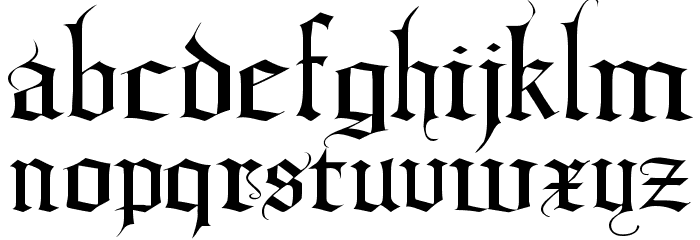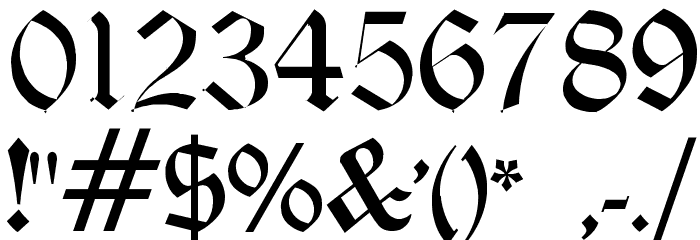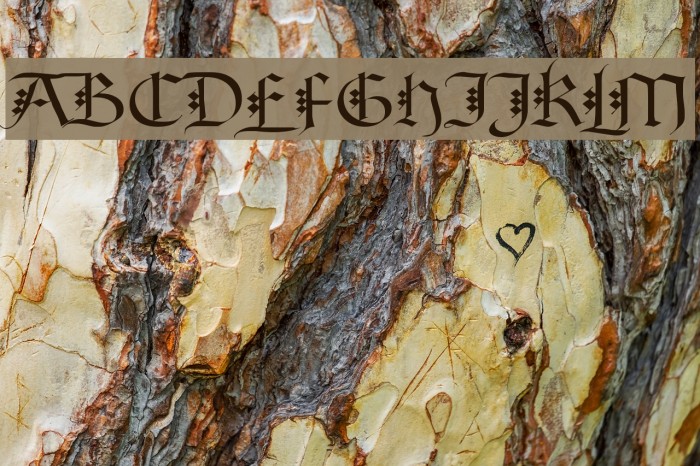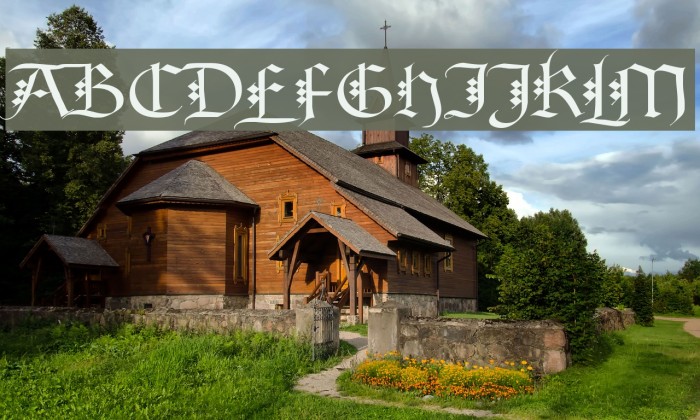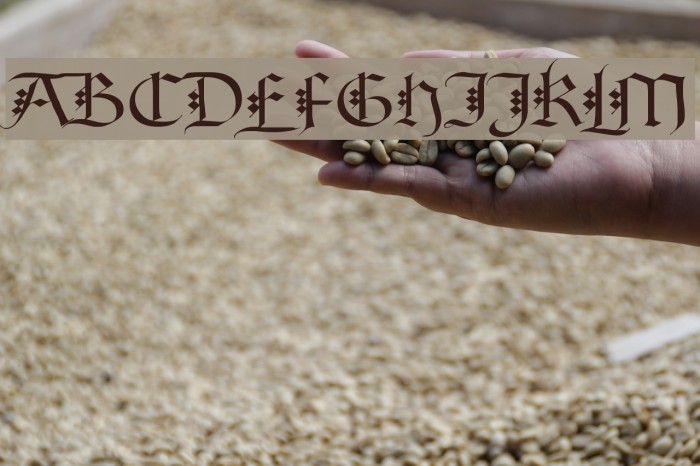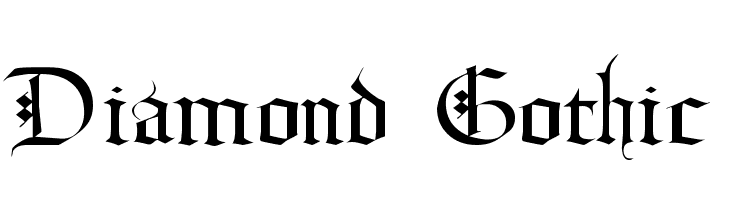
Diamond Gothic Font
This font features a striking and intricate design, reminiscent of traditional Gothic script with a modern twist. The characters are adorned with sharp, angular serifs and decorative elements that evoke a sense of elegance and historical depth. The uppercase letters are particularly ornate, with flourishes that extend beyond the baseline and cap height, creating a dramatic and eye-catching effect. The lowercase letters maintain a consistent style, offering a balance between readability and artistic flair. Numbers and special characters are crafted with the same attention to detail, ensuring a cohesive look across all glyphs. This font is ideal for projects that require a touch of sophistication and a nod to classic typography.
An ornate Gothic-style font with intricate serifs and decorative elements.
- Proposed Projects: Ideal for wedding invitations, historical-themed designs, book covers, and branding that requires a classic touch.
- Overall Style: Vintage
- Use Case: Logos, Headlines, Decorative text